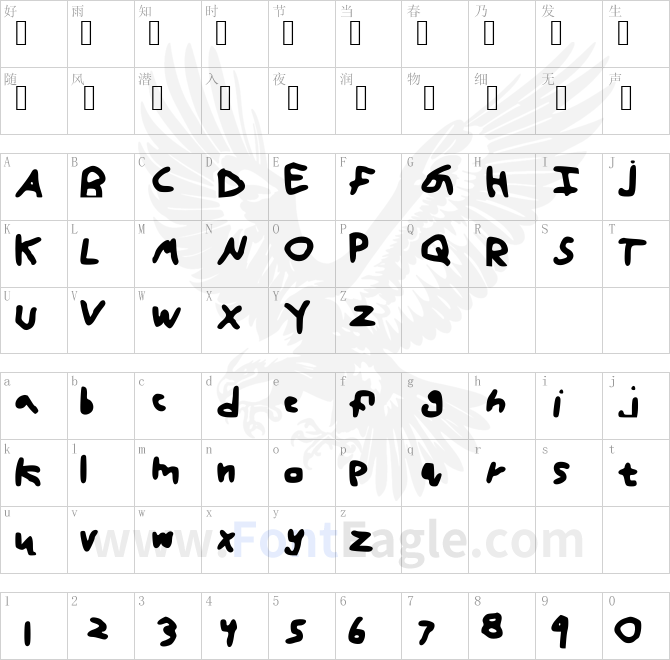
cartoon is a great font, widely used in graphic design, single-page menu design, poster design and other fields, and is deeply loved by designers.cartoon download.